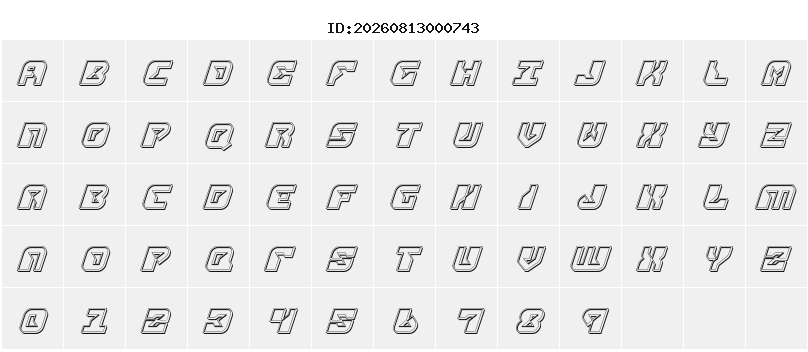
• Font Name: Replicant Engraved Italic
• Full Font Name: Replicant Engraved Italic
About Replicant Engraved Italic.ttf
Replicant Engraved Italic.ttf is a modern, elegant sans-serif font designed for ultimate readability and visual harmony. Perfect for branding, headlines, web design, and print materials.